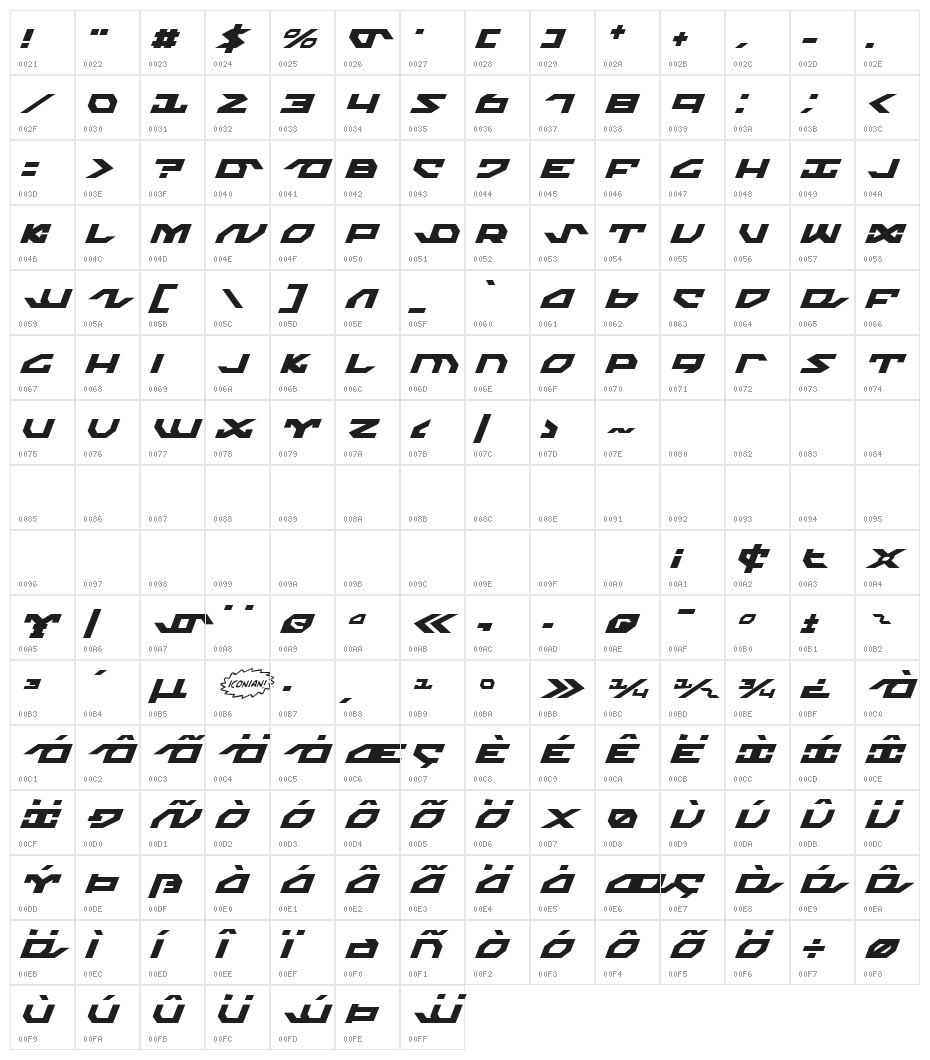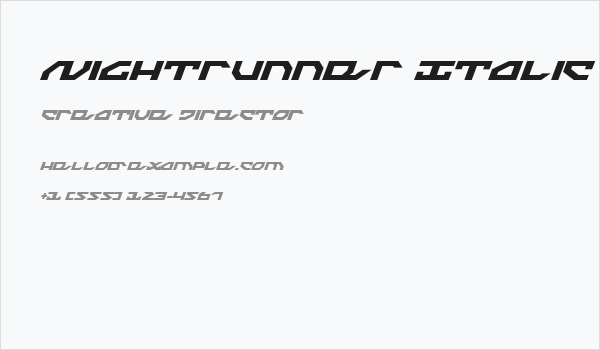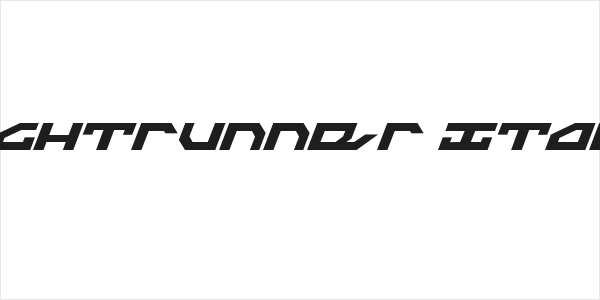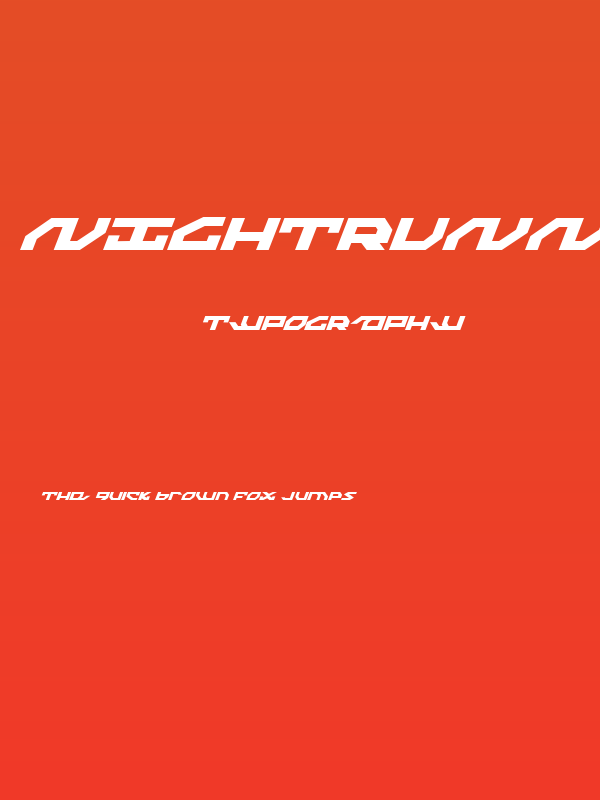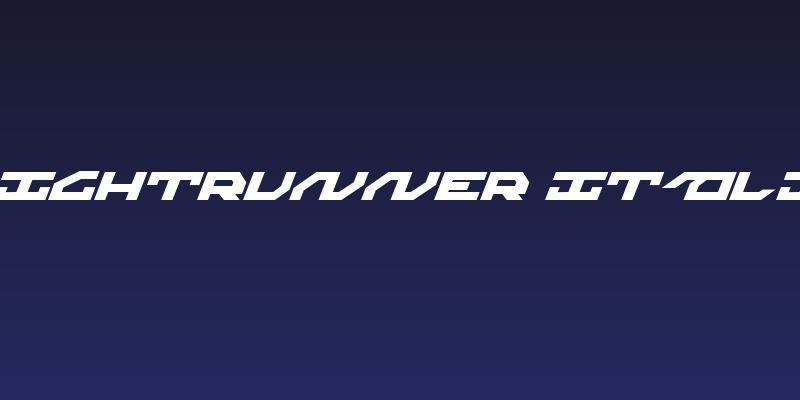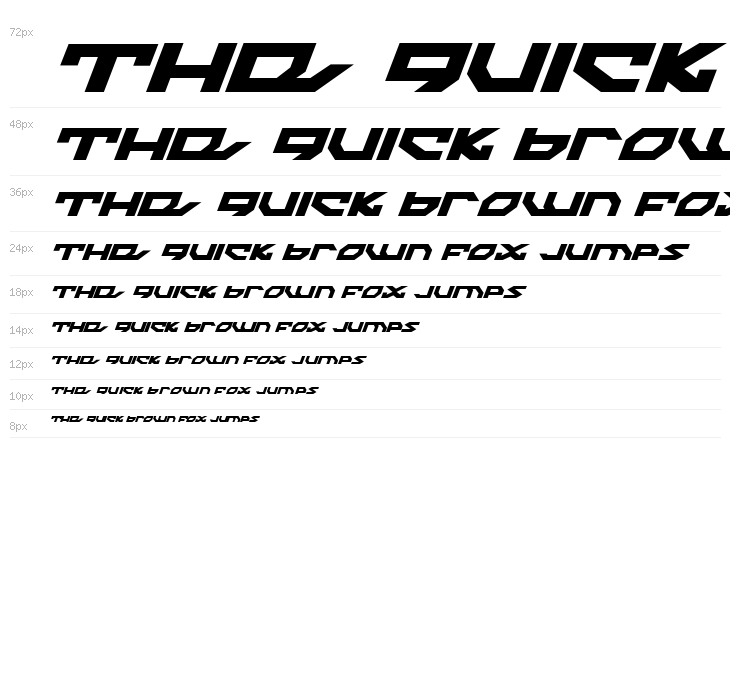
Nightrunner Italic Font
Nightrunner Italic Description
This font features a futuristic and angular design, characterized by sharp edges and a dynamic slant that gives it a sense of motion and speed. The uppercase and lowercase letters maintain a consistent geometric style, with each character exhibiting a unique angular cut that adds to the overall aesthetic. The numerals and special characters follow the same design principles, ensuring uniformity across all glyphs. The font's bold appearance and italicized slant make it ideal for projects that require a modern and edgy look.
| Proposed Projects | Ideal for sci-fi themed projects, video game titles, tech branding, and dynamic posters. |